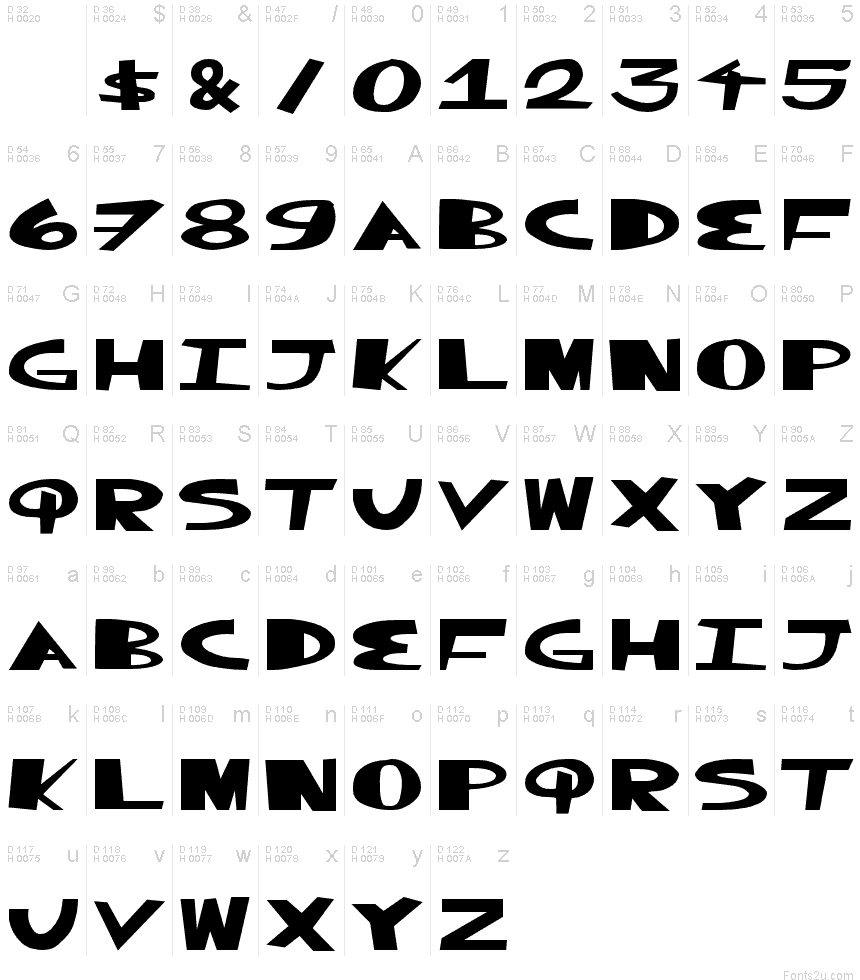
Great Splunk by Xerographer Fonts is a free comic display font with oversized heavy shapes and a deliberately unruly silhouette. Its letters swing between broad curves and abrupt wedges, with uneven widths, tight joins, and squeezed openings that make the line look drawn for a loud cartoon title.
Posters are an especially good medium for its dense, elastic lettering, which can turn a name or slogan into the main piece of artwork. It also suits arcade game graphics, novelty packaging, and youth merchandise. The warped proportions and sharp interruptions point toward slapstick animation, gross-out comedy, and other entertainment built around exaggerated action.